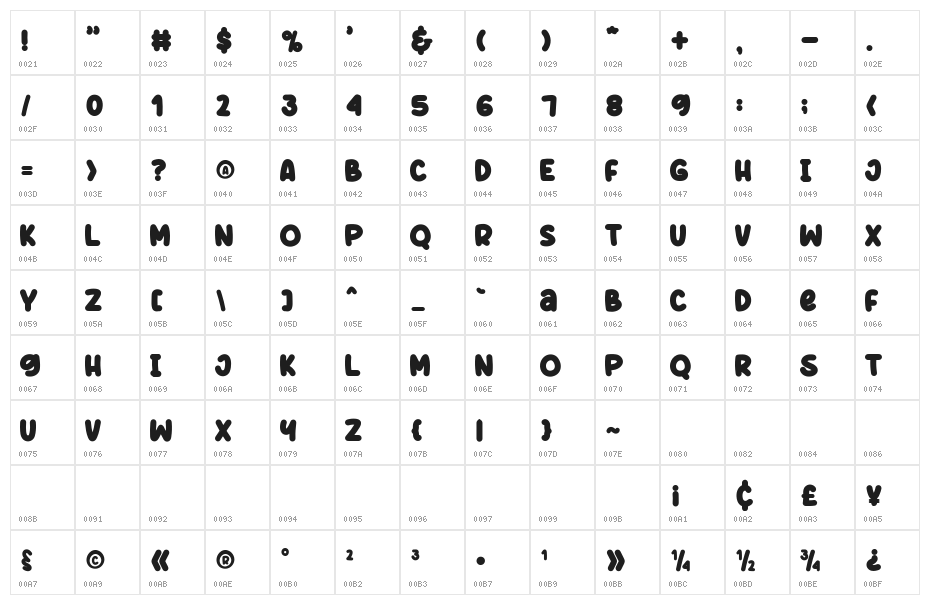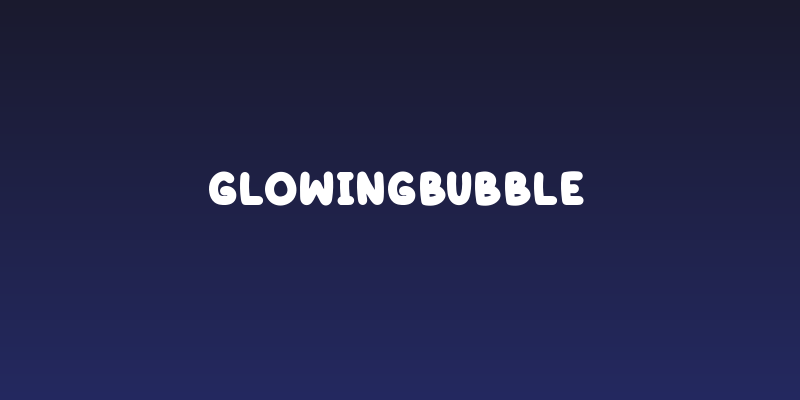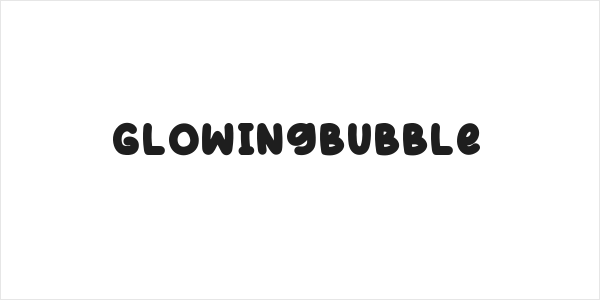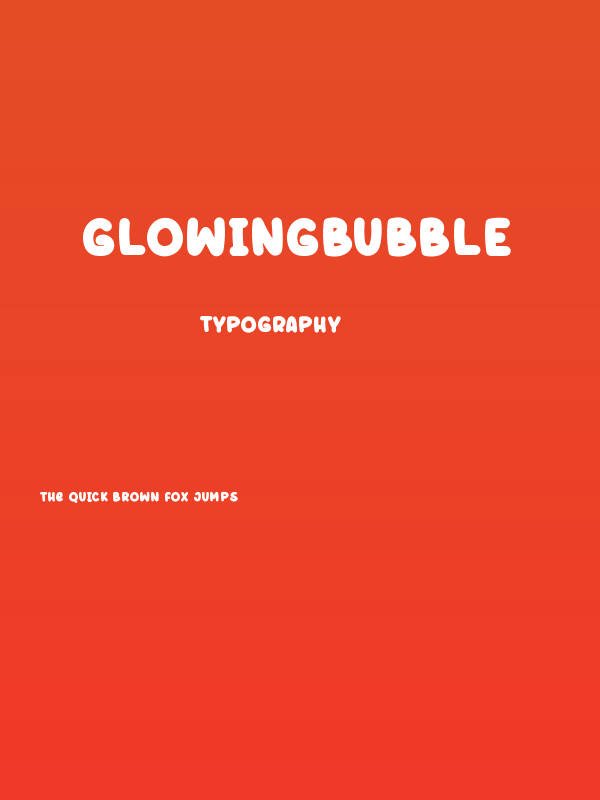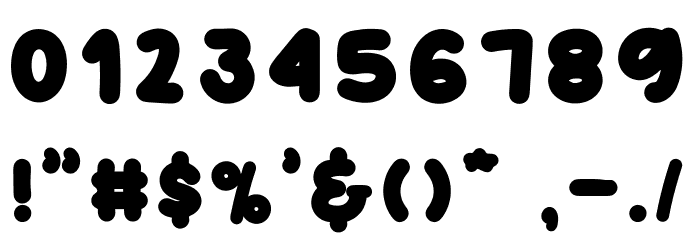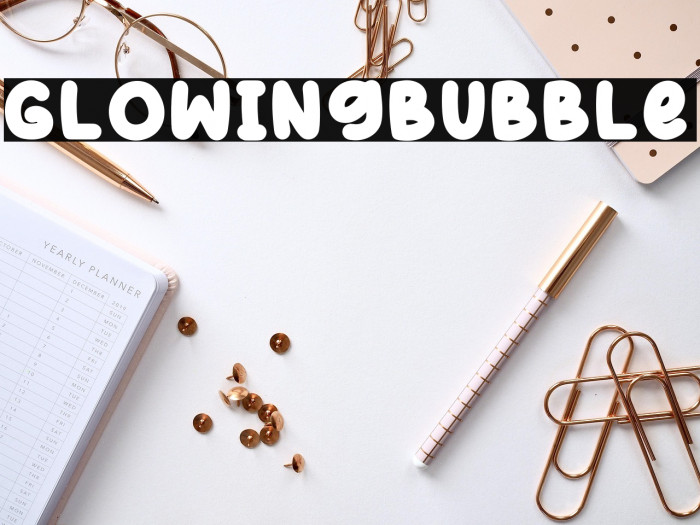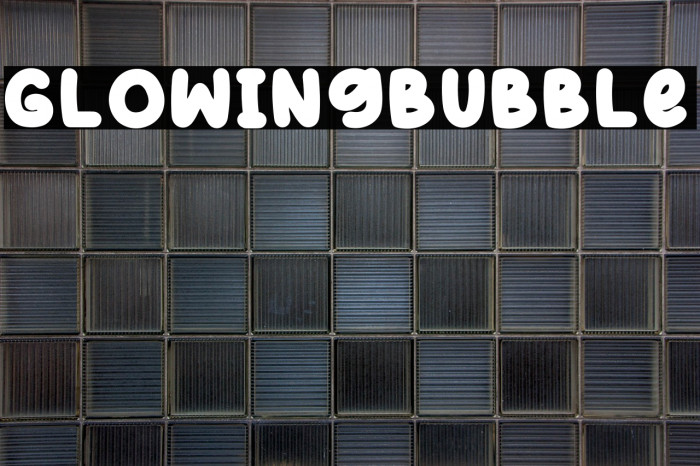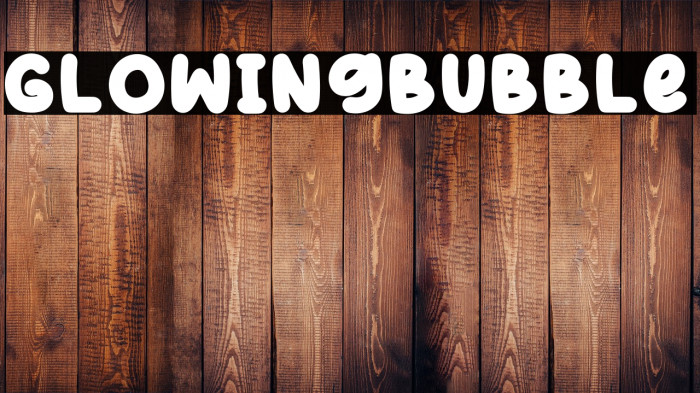
GlowingBubble Font
GlowingBubble Description
This playful and bold typeface features rounded, bubble-like characters that convey a sense of fun and approachability. The letters are thick and uniform, with a consistent stroke width that gives them a cohesive and balanced appearance. The style is reminiscent of cartoon or comic fonts, making it ideal for designs that require a lively and energetic feel. The characters are well-spaced, ensuring readability while maintaining a compact look. This font is particularly effective in capturing attention due to its unique and eye-catching design.
| Overall Style | Playful, Energetic, Fun |
| Proposed Projects | Ideal for children's books, playful branding, party invitations, and comic-style graphics. |